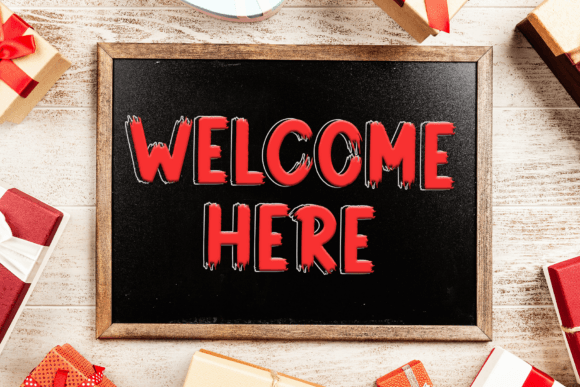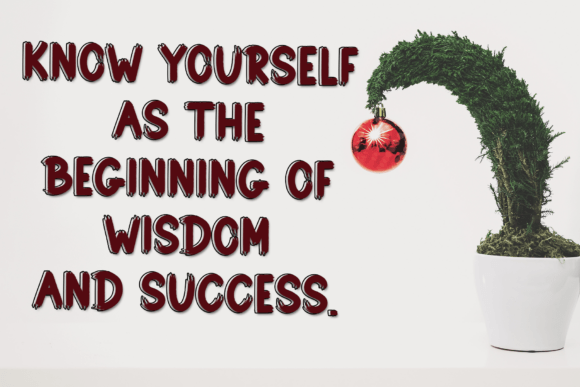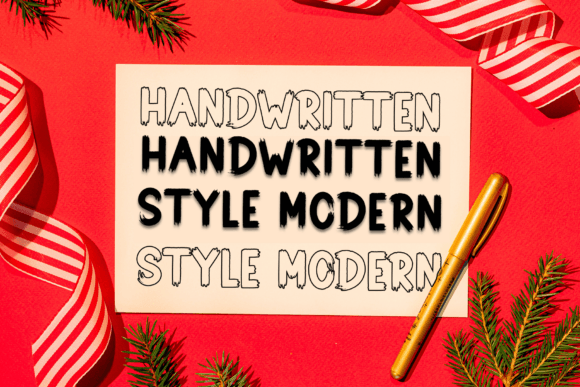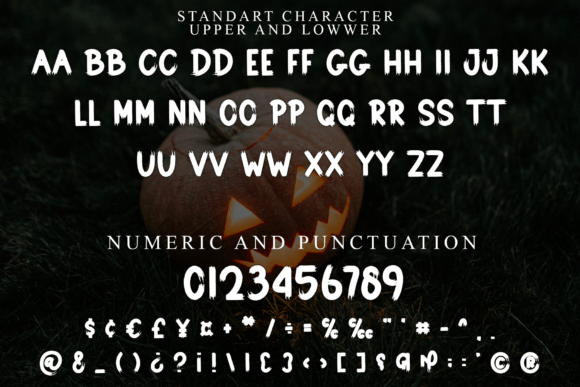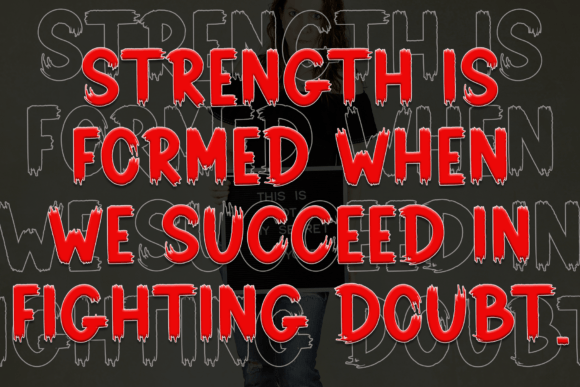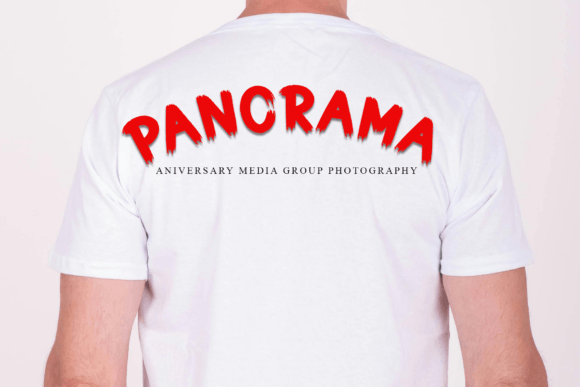
When Creativity Strikes
Have you ever found yourself staring at a blank canvas, waiting for that spark of inspiration to strike? For designers, this moment is all too familiar. The blank page can be intimidating, but it’s also an opportunity to let your creativity shine. And sometimes, all it takes is the right tool to unlock that perfect design.
Enter the Brush Jackass Font, a fun and playful display font that’s perfect for adding a personal touch to your designs. With its bold, lively letters, this font is ideal for eye-catching headlines, posters, and creative projects that need a friendly and artistic vibe. Whether you’re a seasoned designer or just starting out, the Brush Jackass Font is a valuable addition to your toolkit, offering a unique and creative way to express yourself.
Brush Jackass Font Key Features
- Font Family: Brush Jackass Font is a unique, handwritten font family with 6 styles (Regular, Italic, Bold, Bold Italic, Outline, and Shadow)
- Unique Characteristics: Brush Jackass Font features a distinctive, hand-painted look with subtle texture and imperfections, giving it a natural, organic feel
Brush Jackass Font Review
Overall, I think Brush Jackass Font is a unique and interesting choice for designers looking to add some personality to their projects. ✨ The font’s playful, handwritten feel is reminiscent of old-school graffiti and adds a touch of whimsy to any design. ✨
- The font’s imperfections and irregularities give it a charming, handmade quality that’s perfect for creative projects like invitations, posters, and social media graphics.
- Brush Jackass Font is highly customizable, allowing designers to adjust the font’s size, color, and spacing to suit their needs.
However, there are some limitations to consider. ⚠️ The font’s lack of legibility in smaller sizes can make it difficult to read, and the irregular letterforms may not be suitable for formal or professional projects.
⚠️ Additionally, the font’s quirky feel may not be to everyone’s taste, and some designers may find it too childish or amateurish for their projects.
Overall, I think Brush Jackass Font is a great choice for designers who want to add some personality and flair to their work. While it may not be suitable for every project, it’s a fun and versatile font that’s perfect for creative and playful designs.
The Brush Jackass Font is ideal for:
- Designing creative and playful graphics.
- Creating attention-grabbing headlines and titles.
- Adding a touch of whimsy to digital designs.
To get the most out of the Brush Jackass Font, try:
- Combining it with bold colors and contrasting backgrounds.
- Experimenting with different font sizes and styles.
- Using it in conjunction with other creative fonts and graphics.
- Use Brush Jackass Font as the primary font for the poster’s title and main text.
- Combine the font with distressed textures and layers to give the poster a worn, street art feel.
- Use bold colors and striking graphics to draw attention to the poster’s message.
- Pair the font with a distressed texture to add depth and visual interest.
- Use bold, bright colors to contrast with the font’s vintage feel.
- Experiment with different layering techniques to create a dynamic, street art-inspired design.
- Use Brush Jackass Font as the primary font for the cookbook’s headings and main text.
- Combine the font with watercolor illustrations and hand-drawn graphics to create a whimsical, handmade feel.
- Use a warm, earthy color palette to evoke a sense of home and comfort.
- Pair the font with watercolor illustrations to create a soft, dreamy feel.
- Use hand-drawn graphics to add a touch of whimsy and personality to the design. Brush Jackass Font FAQs
What is the recommended font size for using Brush Jackass Font?
Brush Jackass Font is designed to be used at various font sizes, but it’s recommended to use it at a minimum of 12 points for optimal legibility. You can adjust the font size to suit your design needs, but be mindful of the font’s intended use and the context in which it will be displayed.